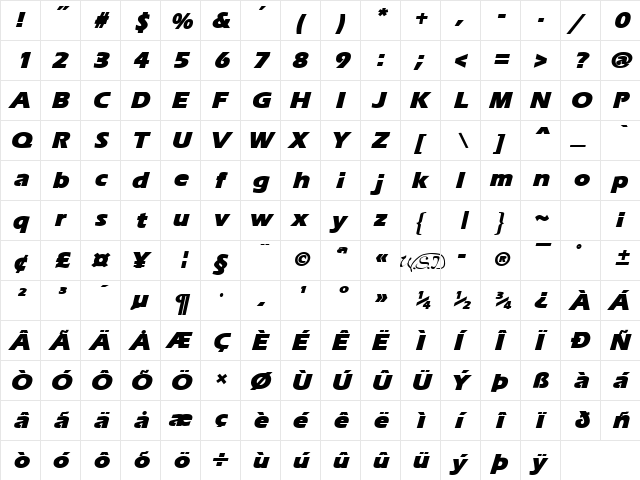
Ergoe-Mild Black Italic
Design Context for Ergoe-Mild Black Typeface
Ergoe-Mild Black is a composed and adaptable typeface that performs quietly and consistently across a wide range of design contexts. The dynamic lean of this cut emphasises speed and emphasis in any layout.
Pro Tip: Use Ergoe-Mild Black for emphasis, pull quotes, and subheadings where its slanted energy can add rhythm to the layout.